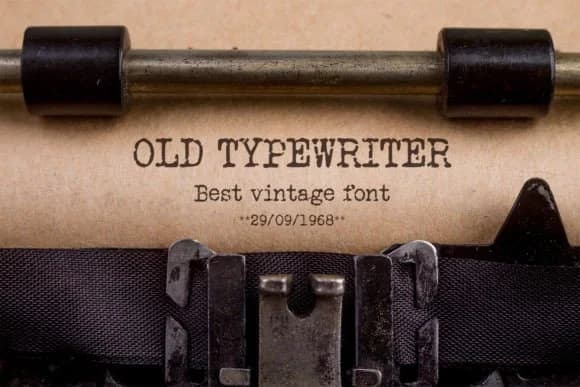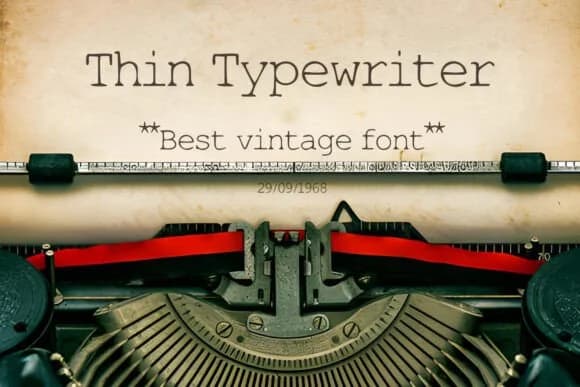
1 / 6About Old Typewriter Font
Old Typewriter by OWPictures is a slab serif that nails the tactile personality of vintage mechanical typewriters. It doesn't just mimic the look; it captures the physical character of metal type striking paper, complete with subtle irregularities that make text feel genuinely period-authentic rather than merely styled to look vintage. Each letter carries that worn, clacked-out quality that makes collectors and designers reach for it again and again.
This font excels for crime and mystery book covers where that typewritten aesthetic sets the genre tone immediately. It's perfect for vintage wedding save-the-dates and typewritten correspondence designs that need authentic period charm. You'll also find it invaluable for antique shop signage, retro product packaging, and vintage journal spreads where the mechanical letterforms add real personality and credibility. The font includes multiple weights for flexibility across headlines and body text, with extended language support for international projects. Whether you're designing a detective novel's title page or crafting packaging for a heritage brand, the consistent spacing and weight keep everything readable without diluting that unmistakable typewriter character that makes it worth using.
- Sturdy, Confident, Typewriter Font
Old Typewriter Font is a slab serif font that shines as a display or heading face. Pair it with a clean sans-serif or serif font for body text β the contrast creates a clear hierarchy while the two styles stay balanced and easy to read.
Old Typewriter Font
by OWPictures